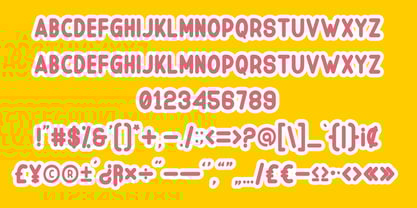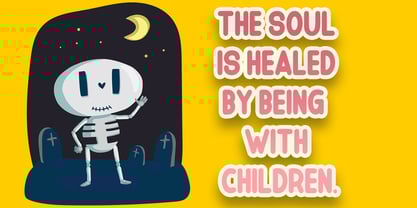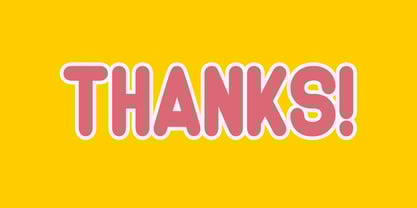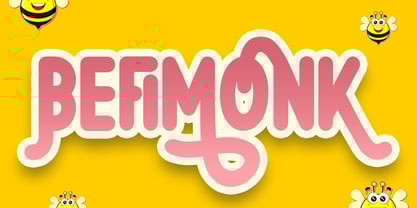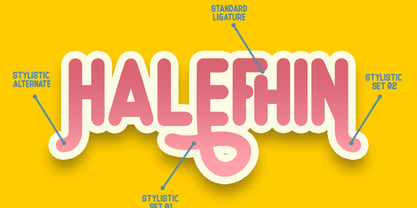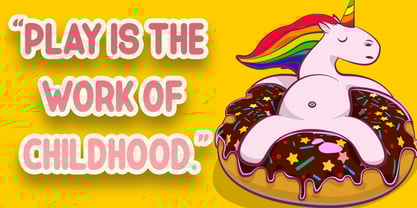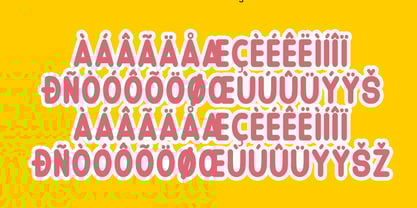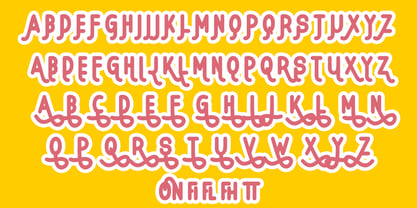
Befimonk
by Skiiller Studio
The Befimonk Font Family was designed by Irfan Mahmudin and published by Skiiller Studio. Befimonk contains 1 styles.
BefiMonk is a fun and bubbly display font with rounded shapes, playful curves, and a cheerful personality. Perfect for kids designs, cartoons, stickers, packaging, posters, logos, and social media content, this font brings a sweet and joyful vibe to any project. Its bold, friendly letterforms are easy to read and instantly eye-catching, making BeeMonk ideal for creative designs that need warmth, fun, and charm.